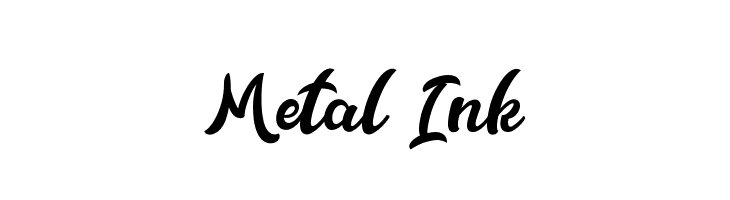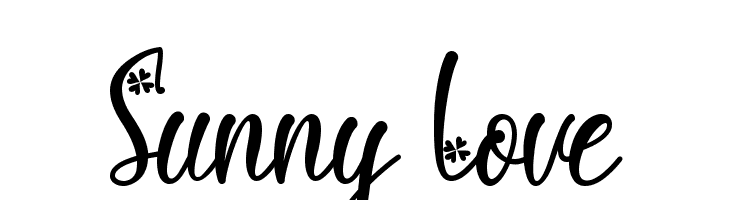
A bold, elegant script font with flowing curves and decorative flair.
A playful and flowing script font with elegant curves and connected strokes.
A playful, handwritten-style font with smooth curves and dynamic flow.
A dynamic handwritten font with fluid, slightly slanted letterforms and playful lowercase characters.
A bold, dynamic graffiti-style font with angular shapes and high contrast.
A bold, modern font with tall, narrow characters and a dramatic style.
A dynamic and flowing script font with elegant cursive letterforms.
A playful, hand-drawn font with irregular, angular shapes and a whimsical style.
A bold, textured, and slanted font with a distressed appearance.
A bold, playful handwritten font with rounded strokes and a friendly appearance.